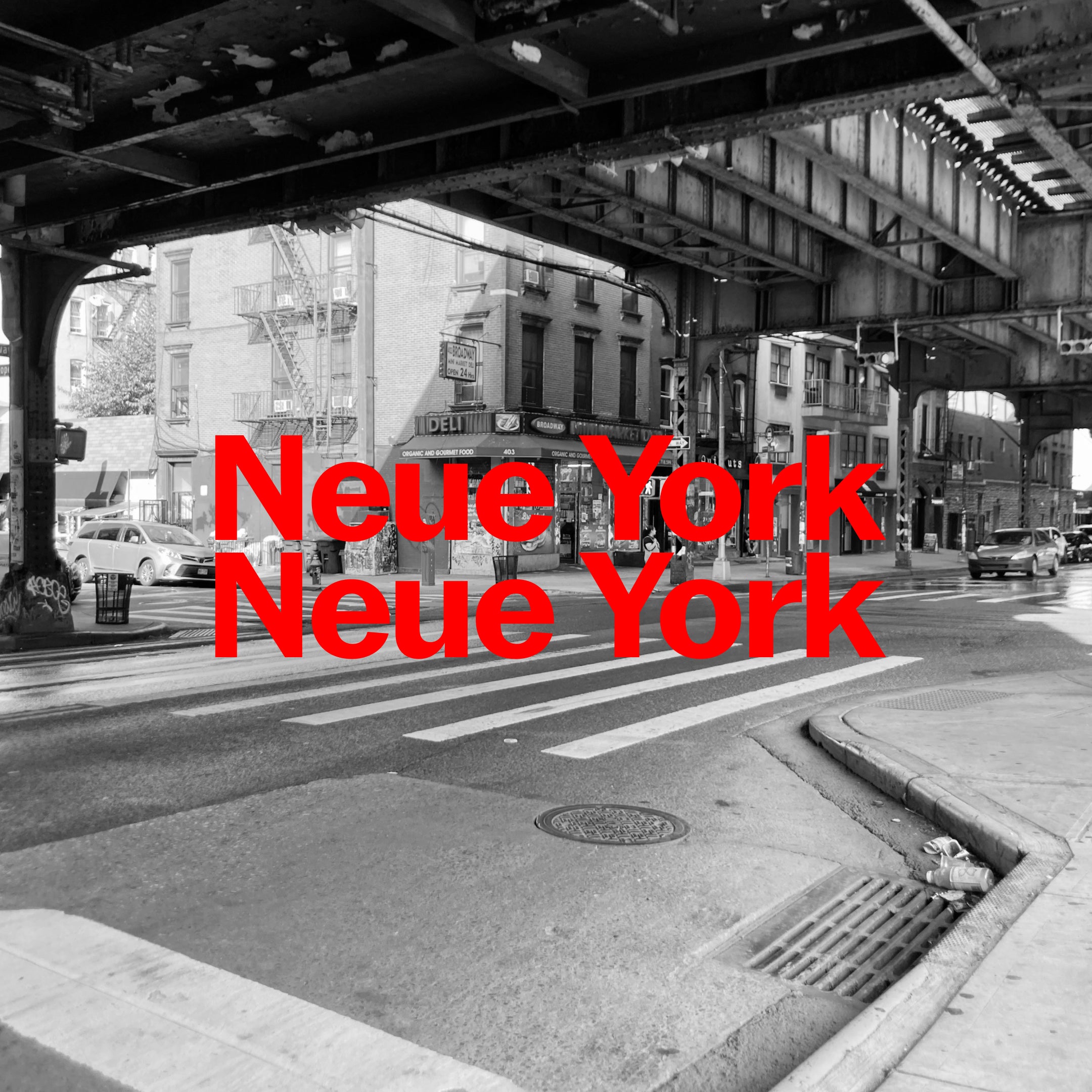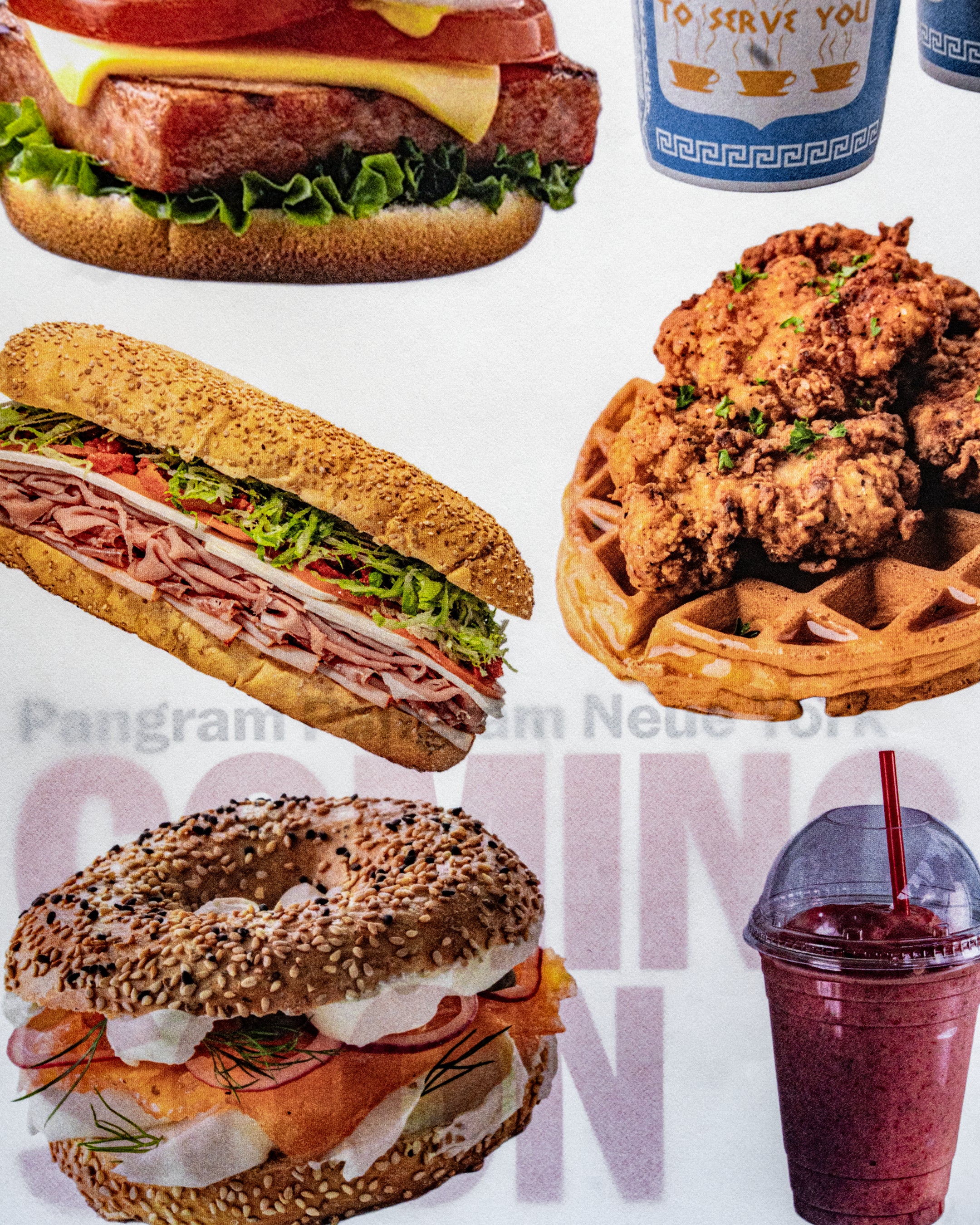
Neue York
Shaped by the city’s layered visual noise: the bodega awnings, the worn American gothics, the mosaic station tiles, the endless rhythm of Avenues and Streets.
A layered gothic rooted in the city's rich designs
PP Neue York is a sans serif shaped by the city’s layered visual noise: the bodega awnings, the worn American gothics, the mosaic station tiles, the endless rhythm of Avenues and Streets. The goal was to capture all of that and fold it into a contemporary type system that still carries a vintage pulse: clean in structure, functional in spirit, but gently rough around the edges, like something that has lived out in the open. Its three widths (Normal, Narrow and Condensed) shift in density the way the city shifts block by block.
Neue York is built as a 48-style family: 8 weights from Thin to Black, each with its own italic, spread across three widths. The widths were drawn with deliberately different x-heights to suit different roles, the Condensed is taller and tighter for headlines, while the Normal has proportions better suited for text and continuous reading. Despite these differences, the family maintains a strong sense of consistency across styles, which allows it to work effectively in both display and text settings.